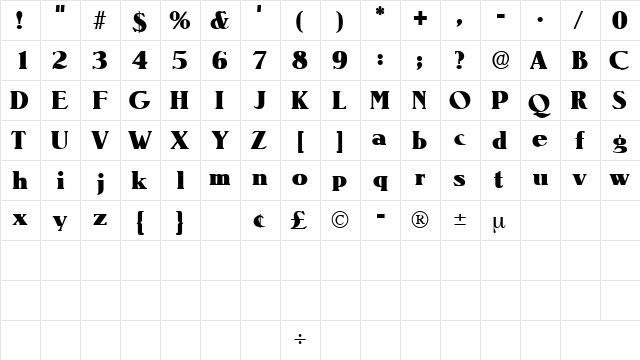
BlendenDisplaySSK Regular
Design Context for BlendenDisplaySSK Typeface
BlendenDisplaySSK brings ornamental detail and strong personality to headlines and identities, where visual impact matters more than quiet functionality.
Font Pairing: Pair with a clean neutral sans-serif for body copy to let BlendenDisplaySSK's character lead without overwhelming the composition.
Pro Tip: Use BlendenDisplaySSK exclusively at display sizes — it was designed to be seen, not read at length. Let a neutral companion handle body copy.